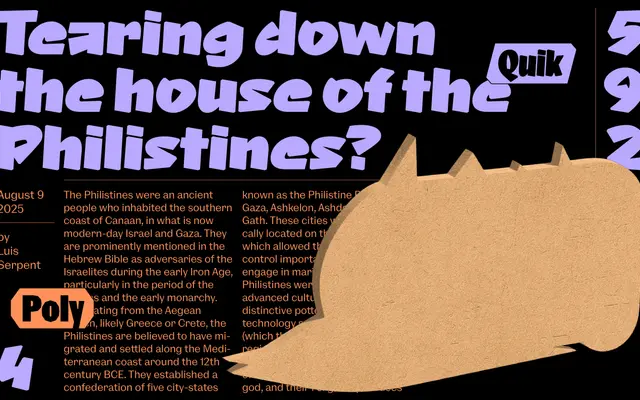
NaN Rage Quik
NaN · Hugues Gentile, Fanny Hamelin, Fadhl Haqq, Léon Hugues, Jean-Baptiste Morizot, Luke Prowse, Florian Runge, Jolana Sýkorová · 2024
A graffiti-rooted script with closed counters and angular forms, available across four widths and nine weights for display and text setting.
Drawing from Sharpie pen lettering and graffiti culture, Rage Quik maintains flow while introducing broken, angular structures and a deliberately shallow slant. Closed counters on key glyphs such as /a and /e replace conventional bowls with single straight strokes, giving it a distinct tightness unusual for script typefaces. The 36-style range spanning four widths from Standard to XCondensed and nine weights from Thin to Black makes it unusually versatile for both narrow display headlines and longer text columns.
Rooted in Sharpie pen lettering and graffiti, Rage Quik is a script typeface with broken angular forms, closed counters and a minimal slant angle, placing it firmly in the informal/expressive script category rather than calligraphic or formal script traditions.